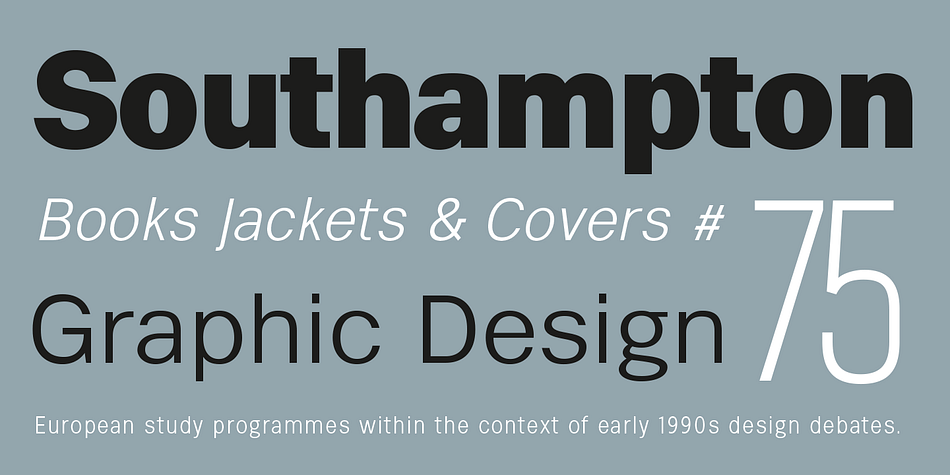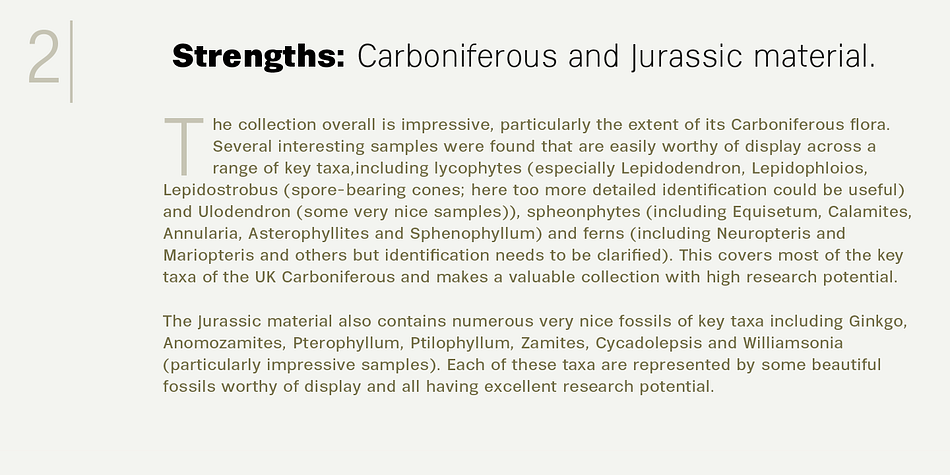
Eurotypo Sans
Designed by Olcar Alcaide, Eurotypo Sans is a sans serif font family. This typeface has twenty-two styles and was published by Eurotypo.
Eurotypo Sans Family is a classic modern Sans Serif typeface.
This family contains seven weights of fonts starting from thin to black, with a matching italic face for each weight.
The family is complete with two font expanded and six fonts condensed.
Each font of the family contain 359 glyphs and advanced typographical support with OpenType features such as, ligatures, discretional ligatures and case- sensitive forms. It also contain diacritics for Central European languages.
All aspect of readability and accurate kerning were carefully controlled.